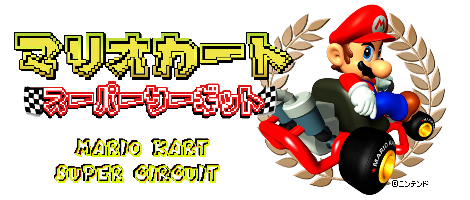
Wooow. This is so cool!
@TG3_C0N-MAN: I'm glad you like it
This looks nice… I wonder if a lowercase set might be possible to do?
@BMW: Already done
For lowercase þ, I was thinking of copying either the b or p, then extending the line so it touches both the top (where the b touches) and bottom (where the p touches)…
@BWM: Corrected "þ"
@MerryBot The sample I posted (showing a lowercase thorn) was probably before he made the lowercase thorn in this font…
I'm suprised "Russian" isn't one of the tags, because this features the entire Cyrillic alphabet!
I am AMAZED. This looks like the font used in SM64! :D
This is so awesome! I wonder why you do such amazing fonts?
Can you make a Filled version
Mario Kart SC GBAby Piotrkowy